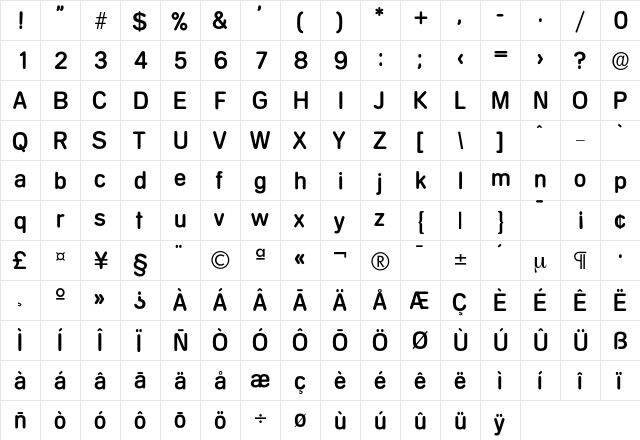
Mercedes-Medium Regular
Design Context for Mercedes-Medium Typeface
Mercedes-Medium takes a measured approach to typography — its balanced proportions and neutral character make it a reliable workhorse for both digital and print work.
Pro Tip: Use Mercedes-Medium in both headline and body roles to test its range before committing to a single application.